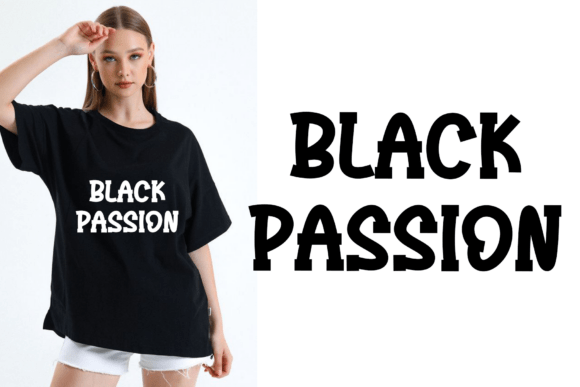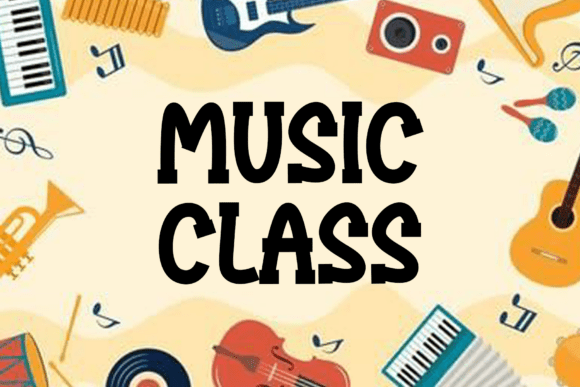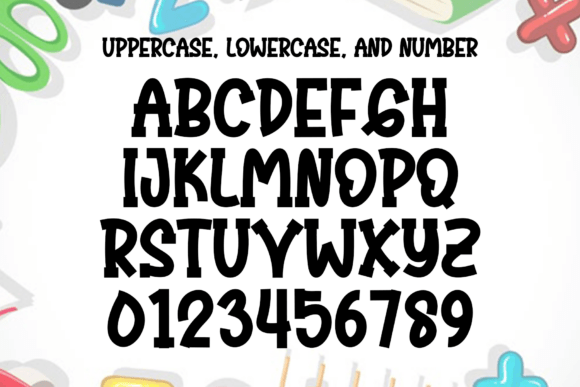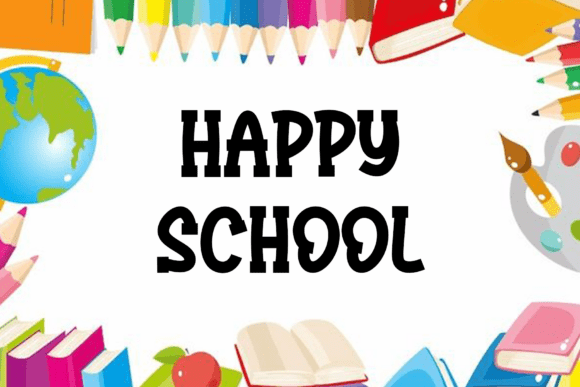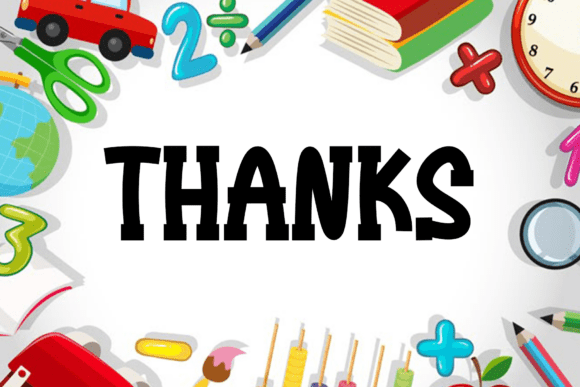
The Perfect Font for a Brighter Learning Experience
Who among us hasn’t had that ‘aha’ moment when we stumble upon the perfect font for a project? For designers, it’s a thrill to find that one font that elevates a design from good to great. For me, that moment came when I discovered the Bright School Font – a bold and playful display font that’s as cheerful as it is clear.
Designed specifically with education in mind, the Bright School Font is perfect for school projects, kids’ book covers, classroom posters, and educational branding. Its cartoon-style proportions bring a sense of fun and energy to every design, making it an invaluable tool for designers who want to create engaging and informative content for young learners.
Bright School Font Key Features
- Font Family: Bright School Font is a sans-serif font family designed for educational purposes.
- Character Count: The font family includes 256 characters, including uppercase and lowercase letters, numerals, punctuation, and special characters.
- Unique Characteristics: The font features a clean and modern design with a friendly tone, making it ideal for educational materials, children’s books, and other related content.
Bright School Font Review
Overall, I think the Bright School Font is a decent choice for educational materials, but it’s not without its flaws. ✨ Here are a few things I think work well:
- Legibility: The font is highly legible, making it perfect for reading and writing for students of all ages.
- Consistency: The font is consistent across different font sizes and styles, which helps to create a cohesive look and feel.
- Playfulness: The font’s playful feel adds a touch of whimsy to educational materials, which can help to make learning more engaging.
However, there are a few limitations I’ve noticed: ⚠️
- Lack of versatility: The font is quite limited in its design, which can make it feel stale and uninteresting after a while.
- Difficulty in scaling: While the font is legible at most font sizes, it can become a bit fuzzy when scaled up or down.
Overall, I think the Bright School Font is a solid choice for educational materials, but it’s not perfect. It’s a good option for those who want a playful, easy-to-read font, but it may not be the best choice for those who want a more versatile or scalable font.
Tips for Getting the Most Out of Bright School Font
Use Bright School Font for titles, headings, and emphasis to create a visually appealing design.
Pair Bright School Font with other fonts to create a unique and eye-catching design.
Experiment with different font sizes and styles to create contrast and visual interest.
Use Bright School Font for educational materials, such as textbooks, worksheets, and presentations.
Use Bright School Font for branding and marketing materials, such as logos, business cards, and brochures.
Use Bright School Font for creative projects, such as posters, flyers
Alternatives to Bright School Font